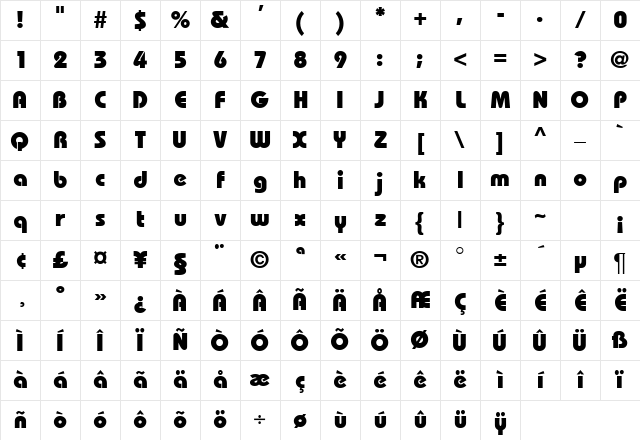
BaronBlackDB Bold
BaronBlackDB Family
Design Context for BaronBlackDB
BaronBlackDB is a composed and adaptable typeface that performs quietly and consistently across a wide range of design contexts. Its bold stroke weight gives it real presence on the page.
Pro Tip: Use BaronBlackDB in both headline and body roles to test its range before committing to a single application.